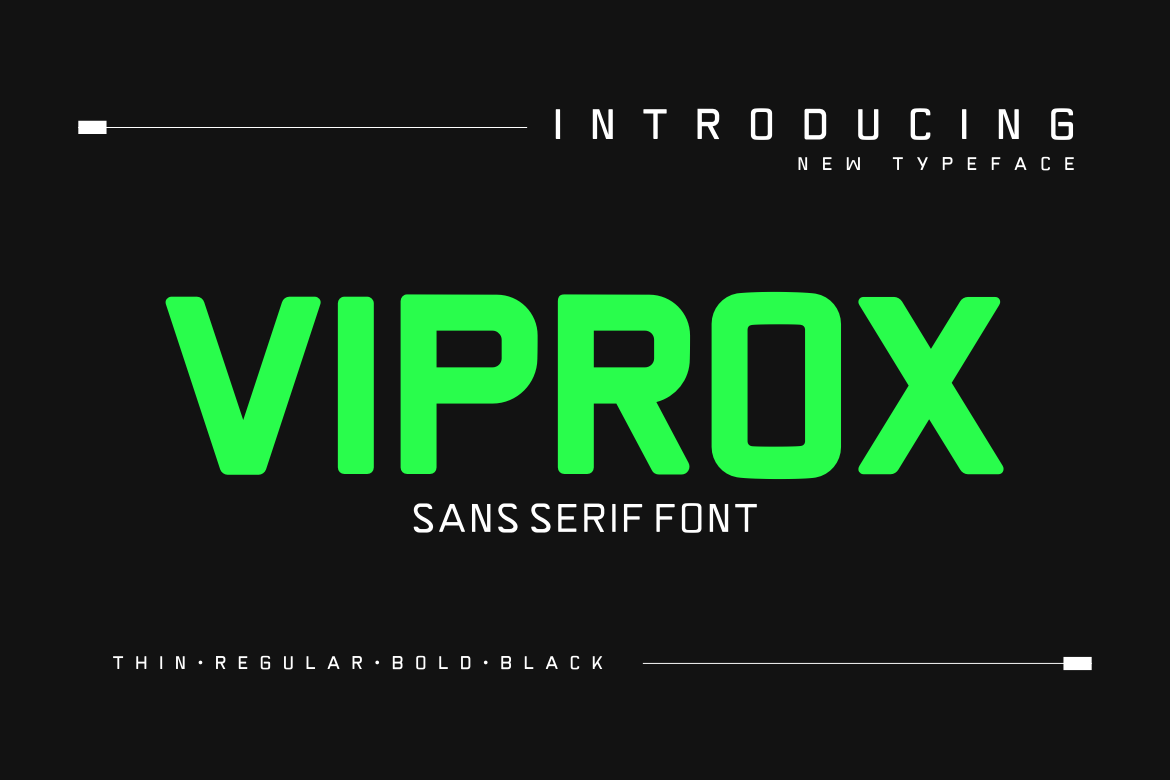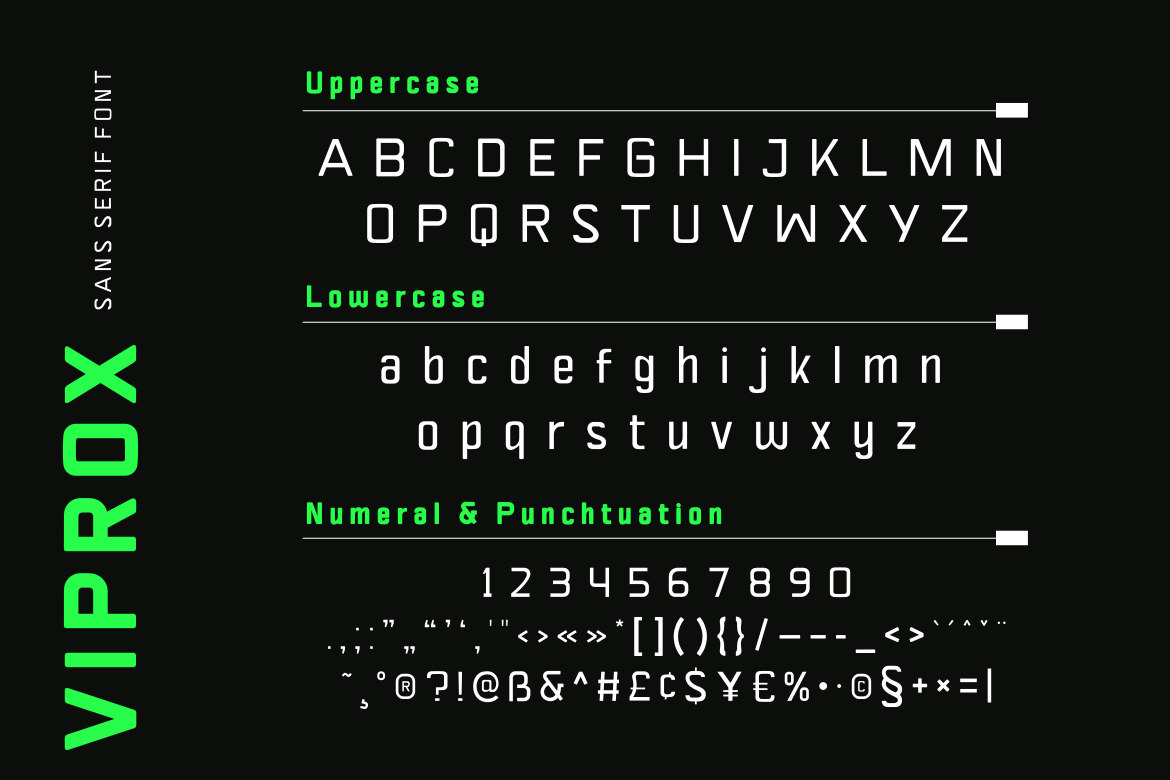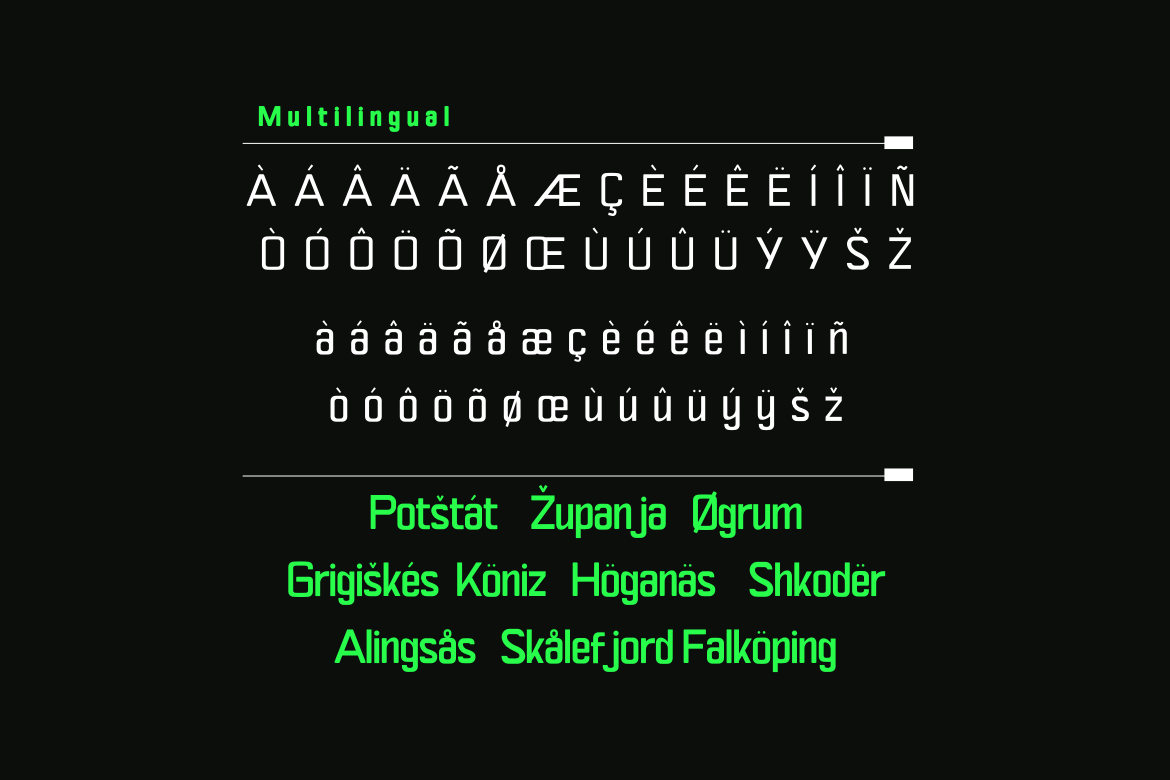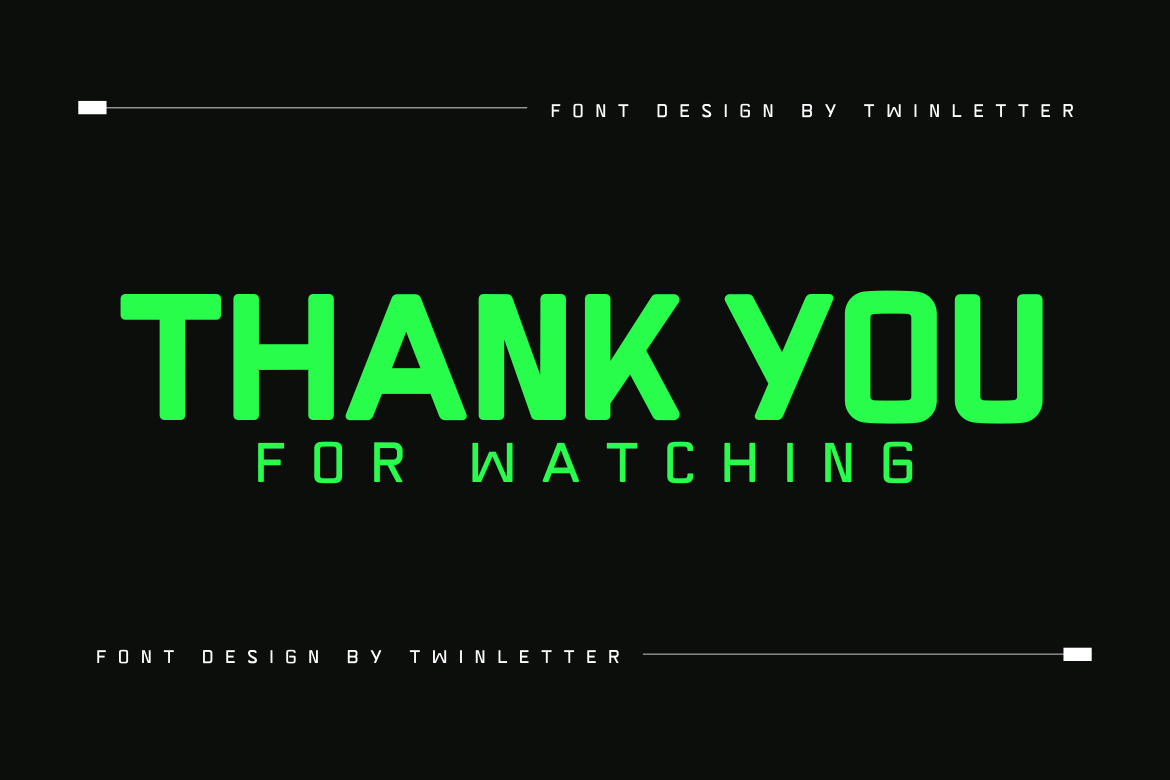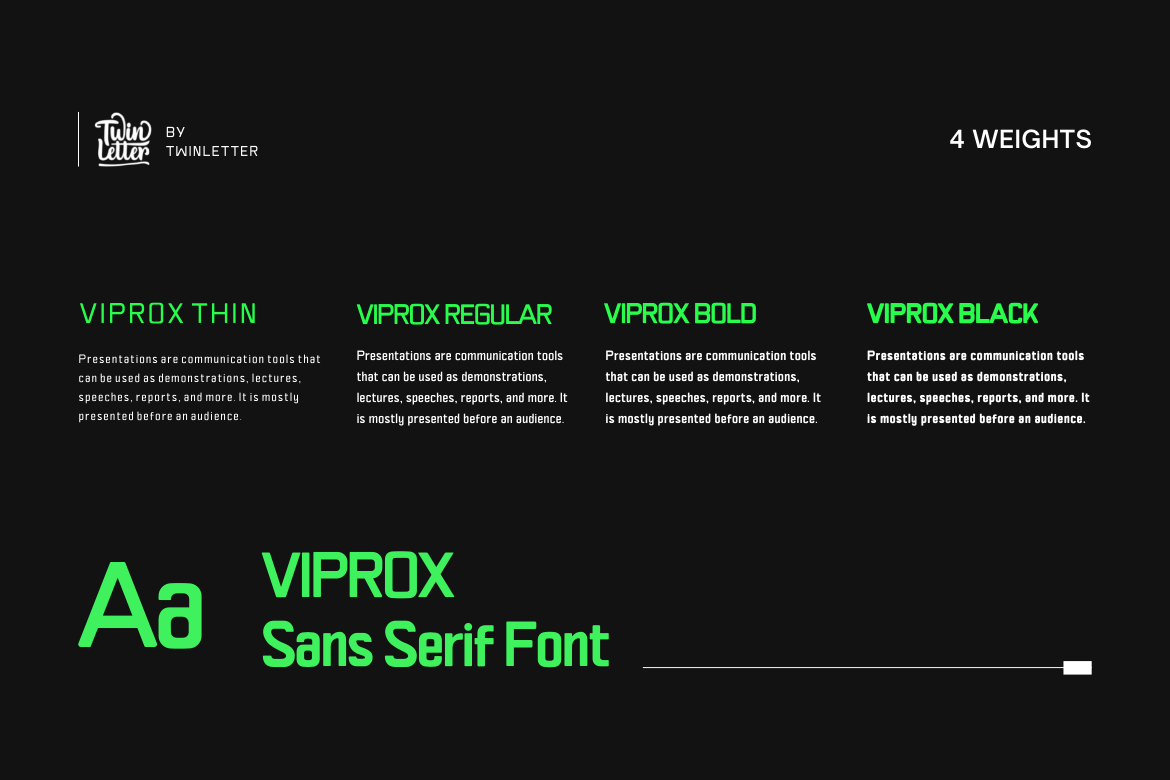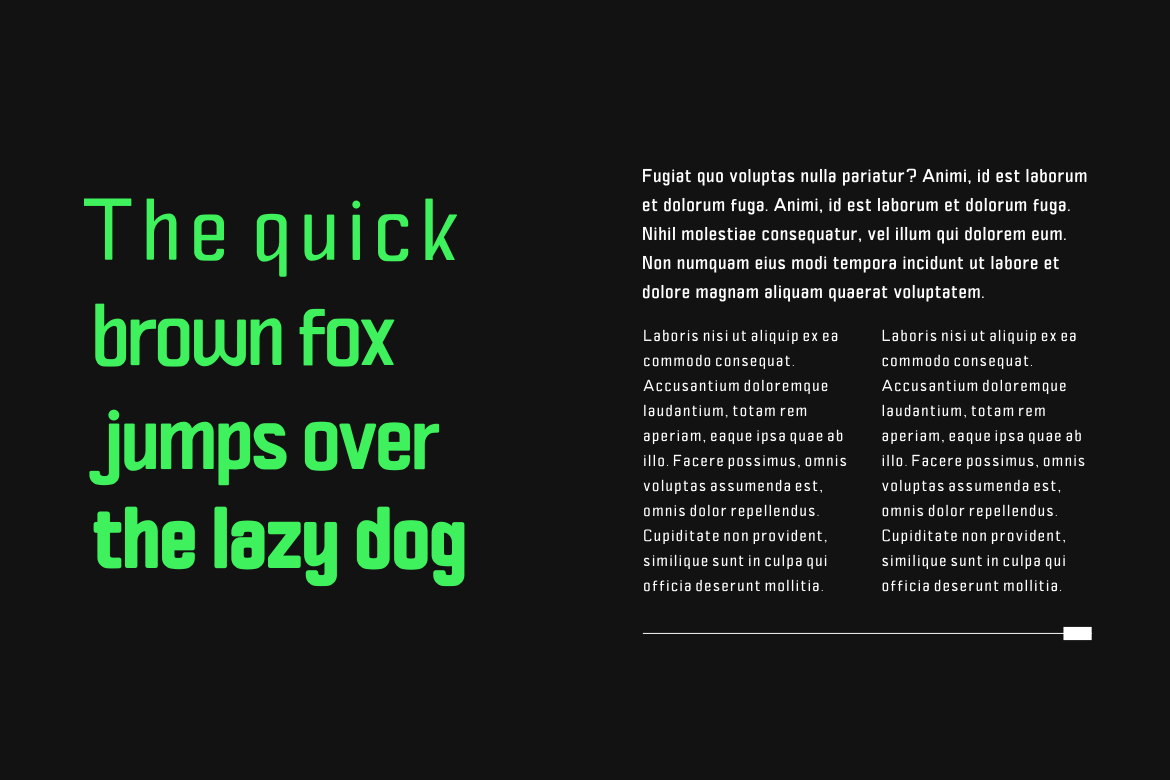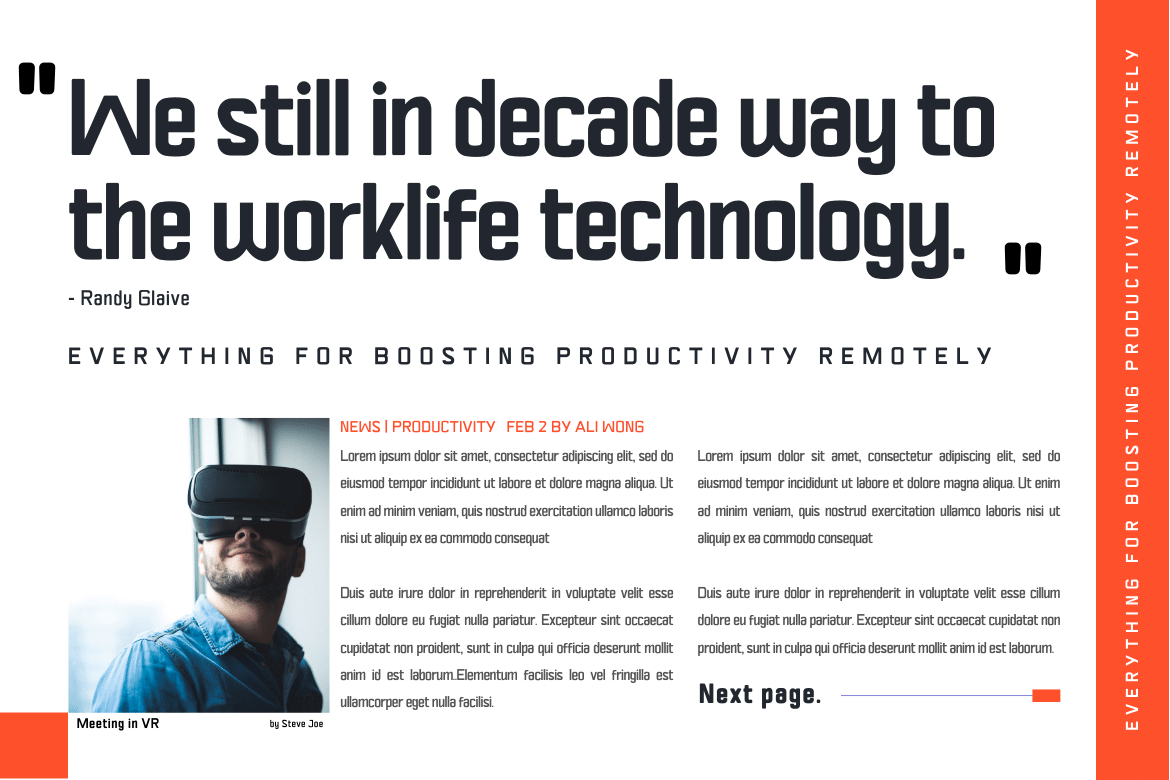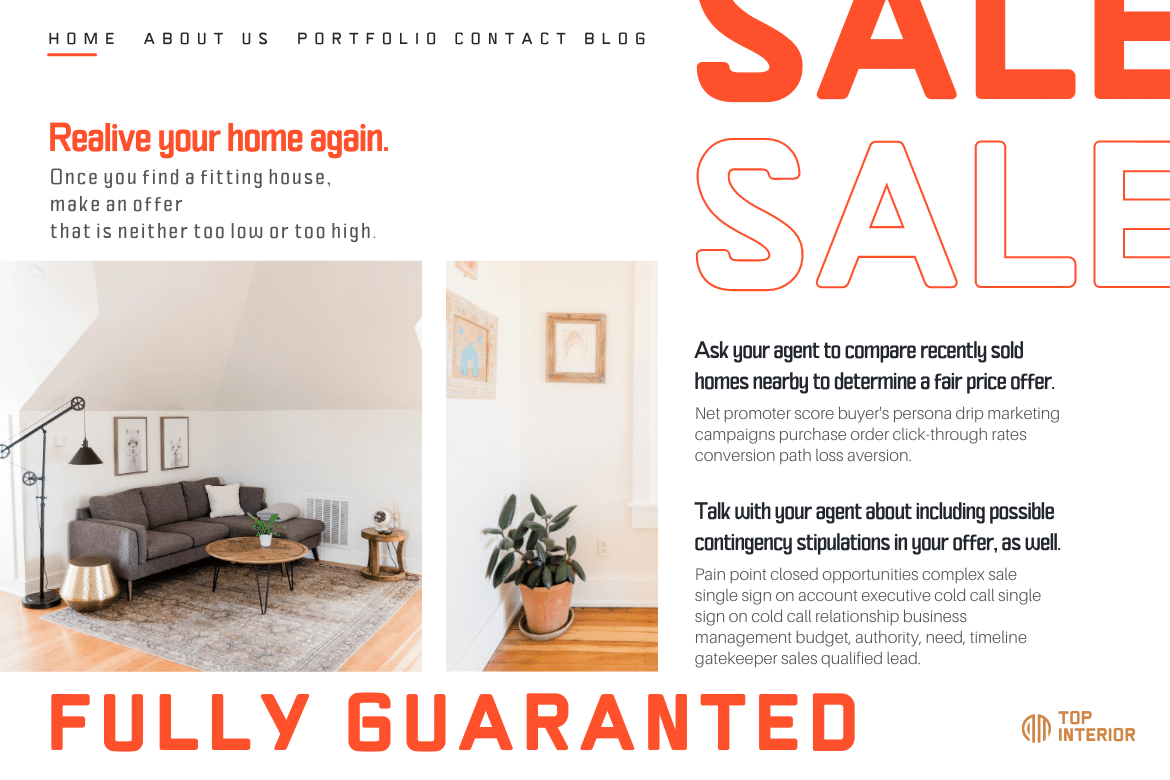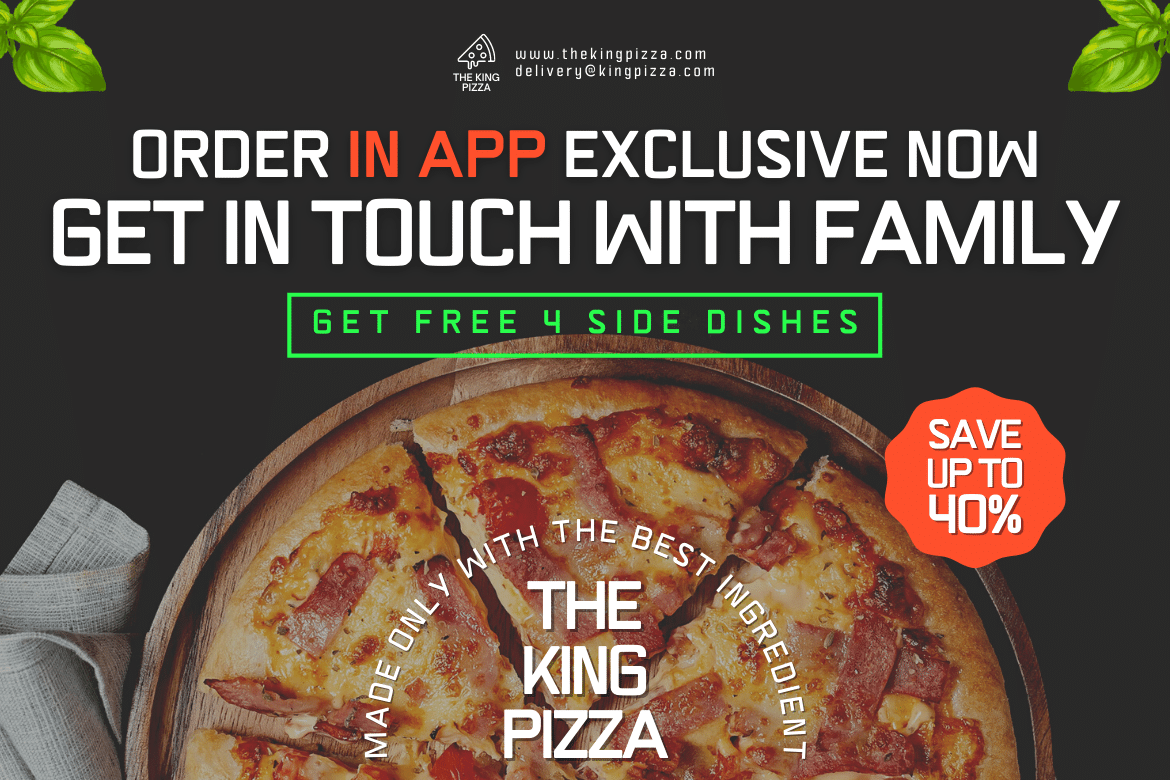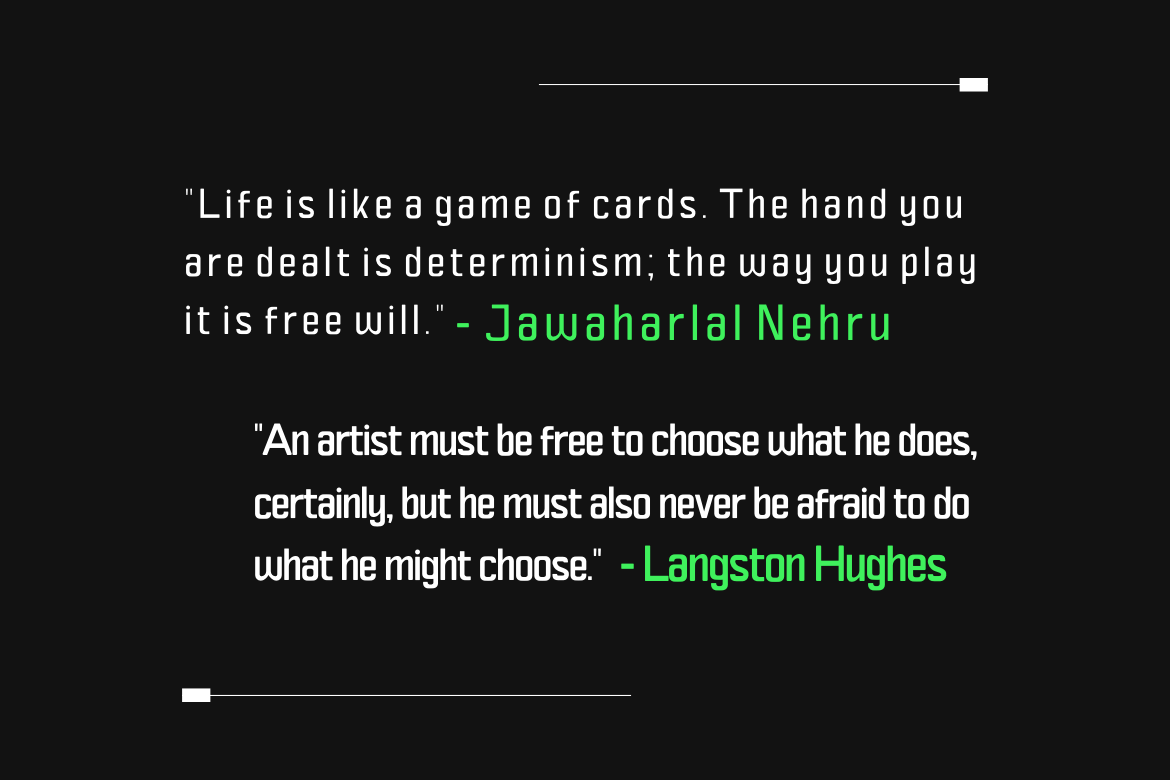
Viprox
Viprox is a strong and elegant display typeface, created to maximize the use of horizontal space. Crafted from hand-drawn sketches and perfected in digital, Viprox consists of thin, regular, bold, and stunning black. Viprox makes a strong impression in print, headlines, video, and social media – whether paired with a contrasting typeface or on its own.
• Fonts include multilingual support for; Afrikaans, Albanian, Croatian, Czech, Danish, Dutch, English, Estonian, Finnish, French, German, Hungarian, Italian, Norwegian, Polish, Portuguese, Slovak, Slovenian, Spanish, Swedish